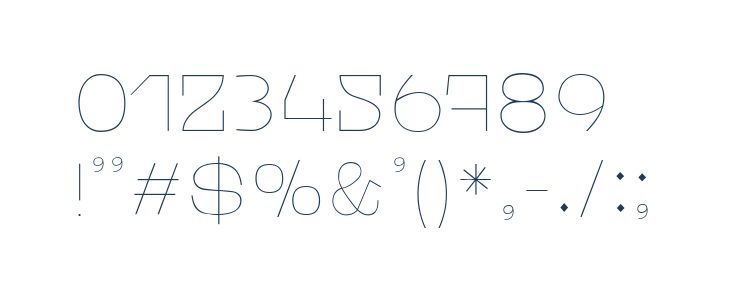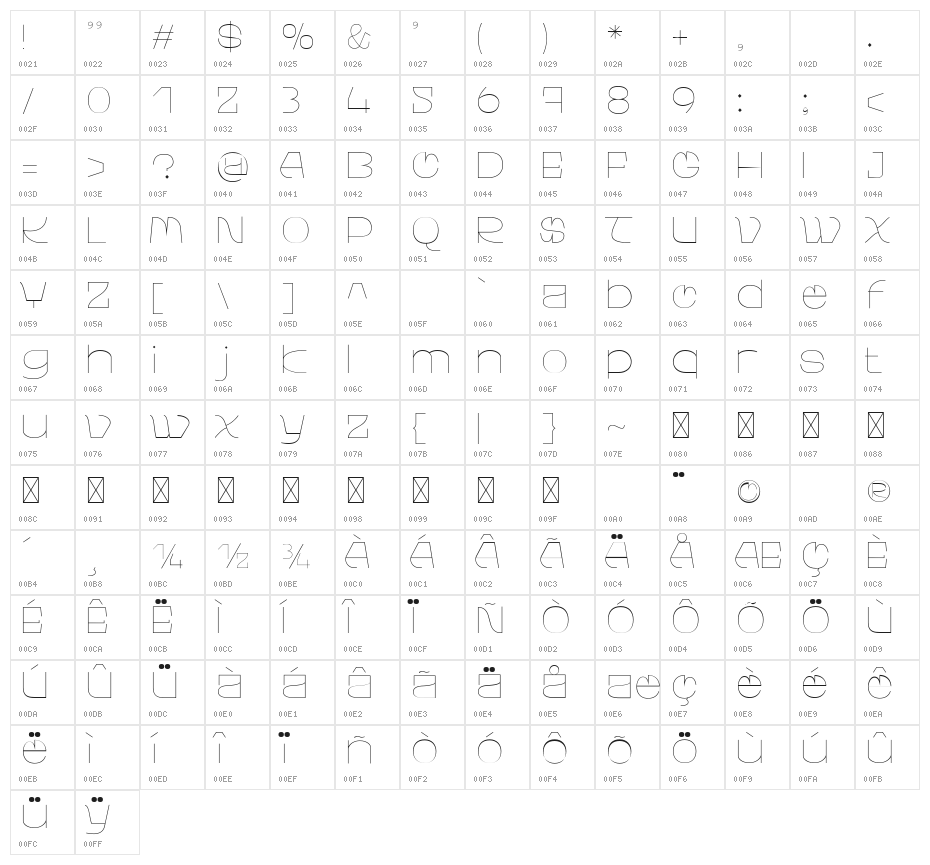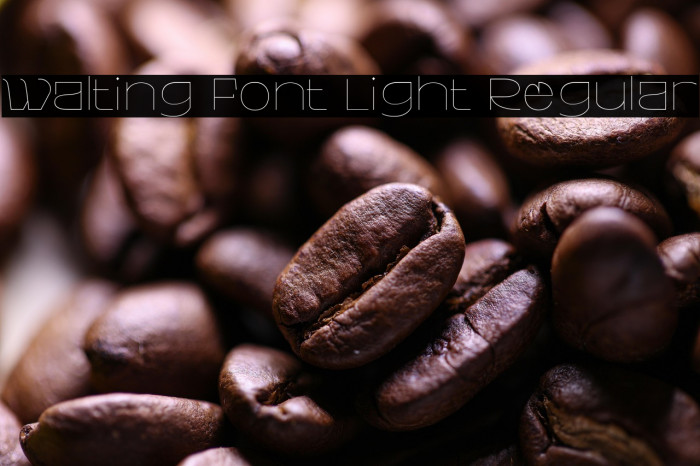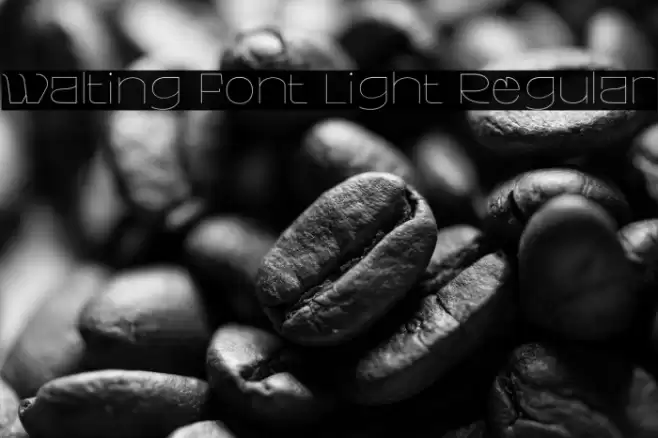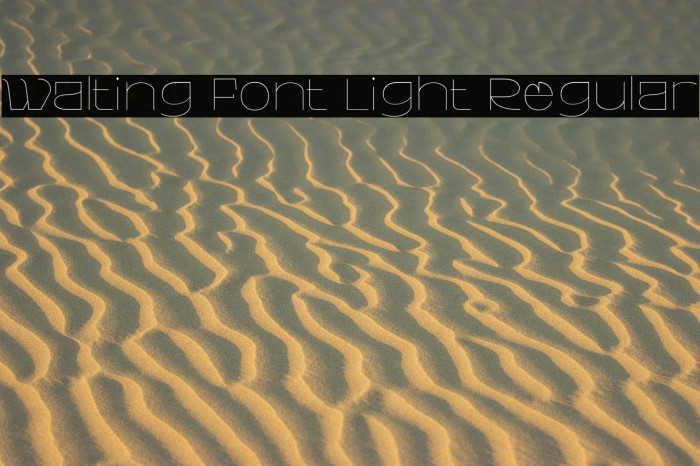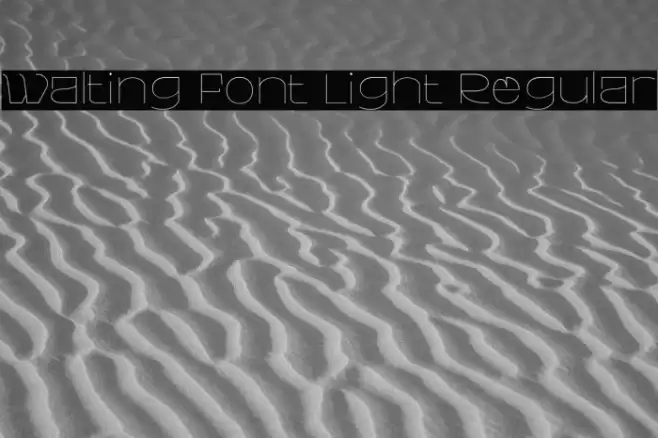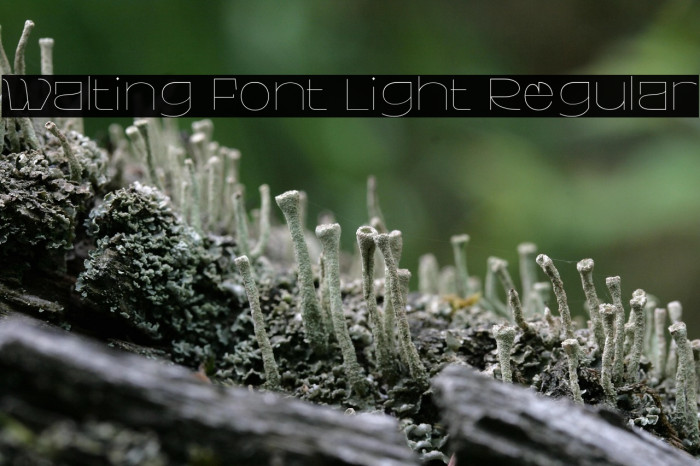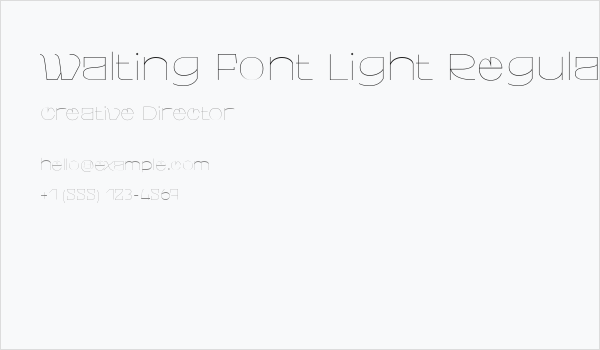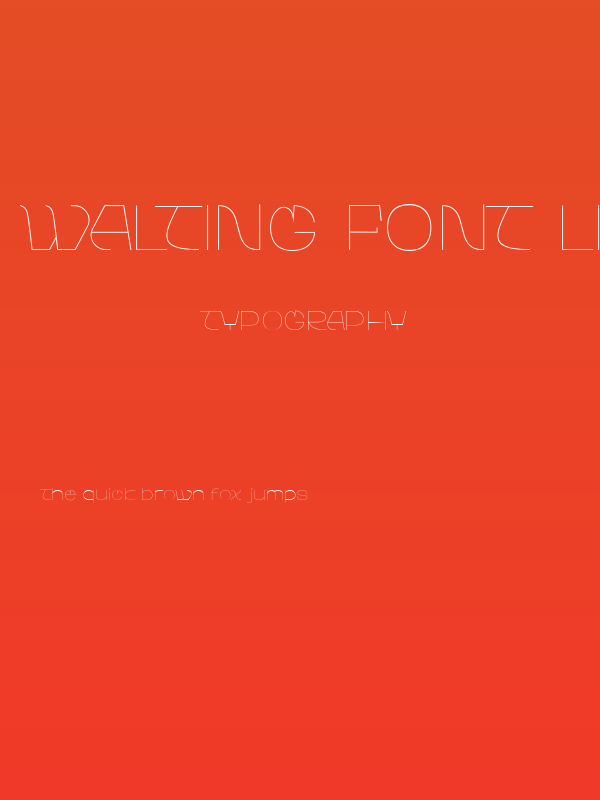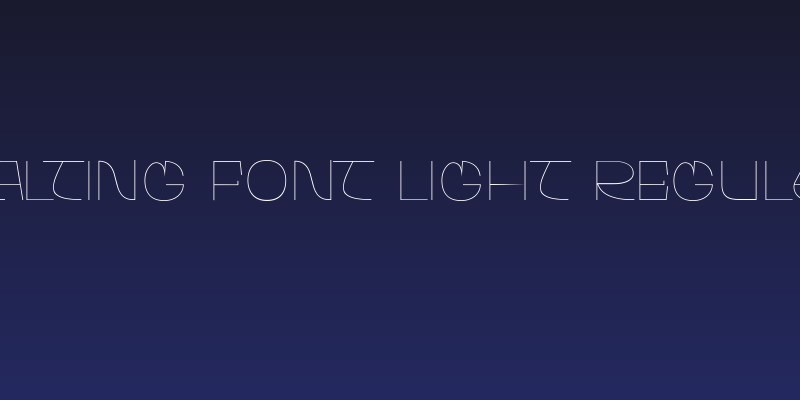
Walting Font Light Regular Font
Walting Font Light Regular Description
This font presents a sleek and modern design with a geometric structure. The characters are crafted with thin lines and a minimalist aesthetic, giving it a futuristic and clean appearance. The uppercase and lowercase letters maintain a consistent style, with rounded edges and a uniform line weight. Numbers and special characters are designed to complement the alphabet, featuring the same thin and precise lines. The overall look is elegant and sophisticated, making it suitable for contemporary design projects.
| Use Case | Logos, Headlines |
| Proposed Projects | Ideal for tech branding, modern web design, and minimalist posters. |